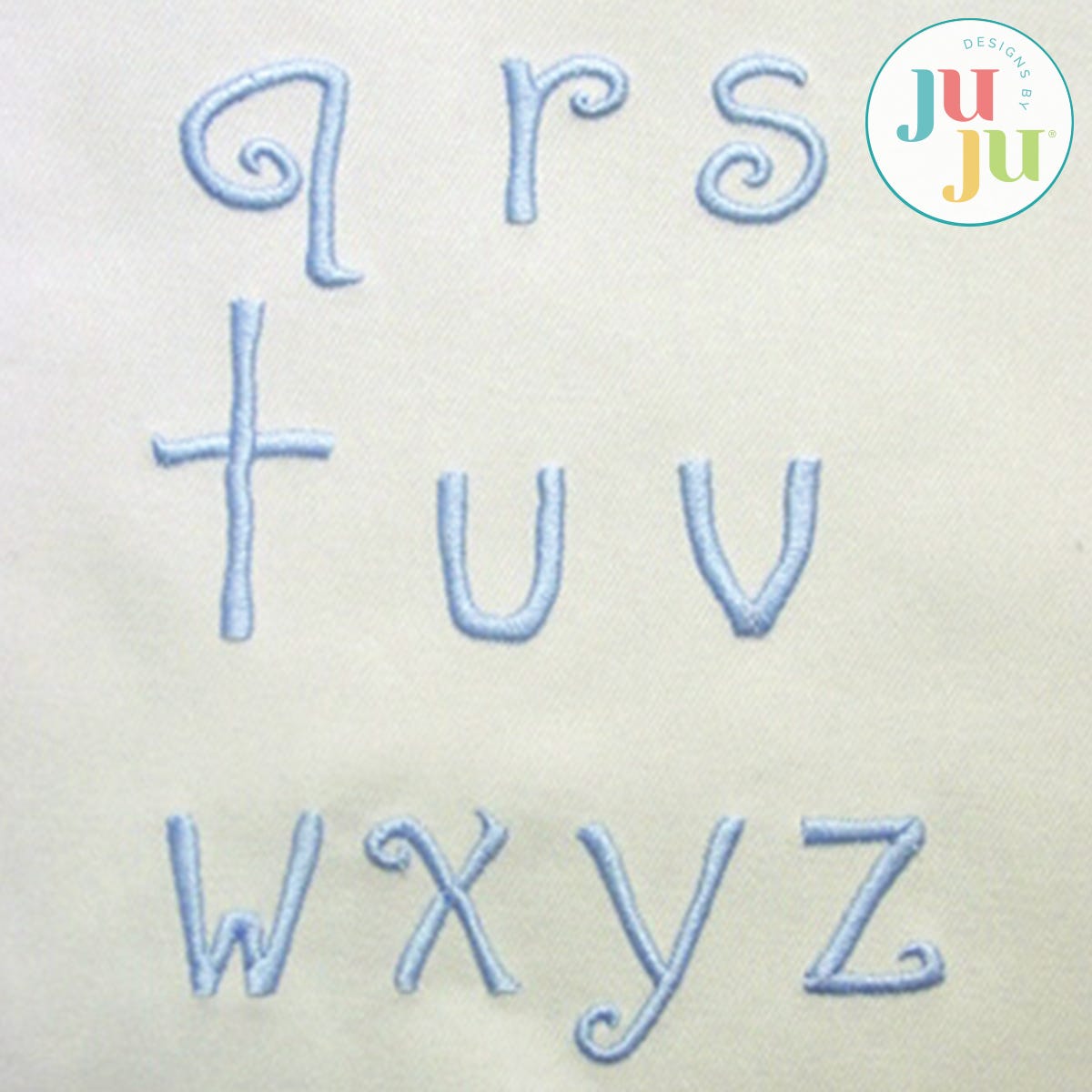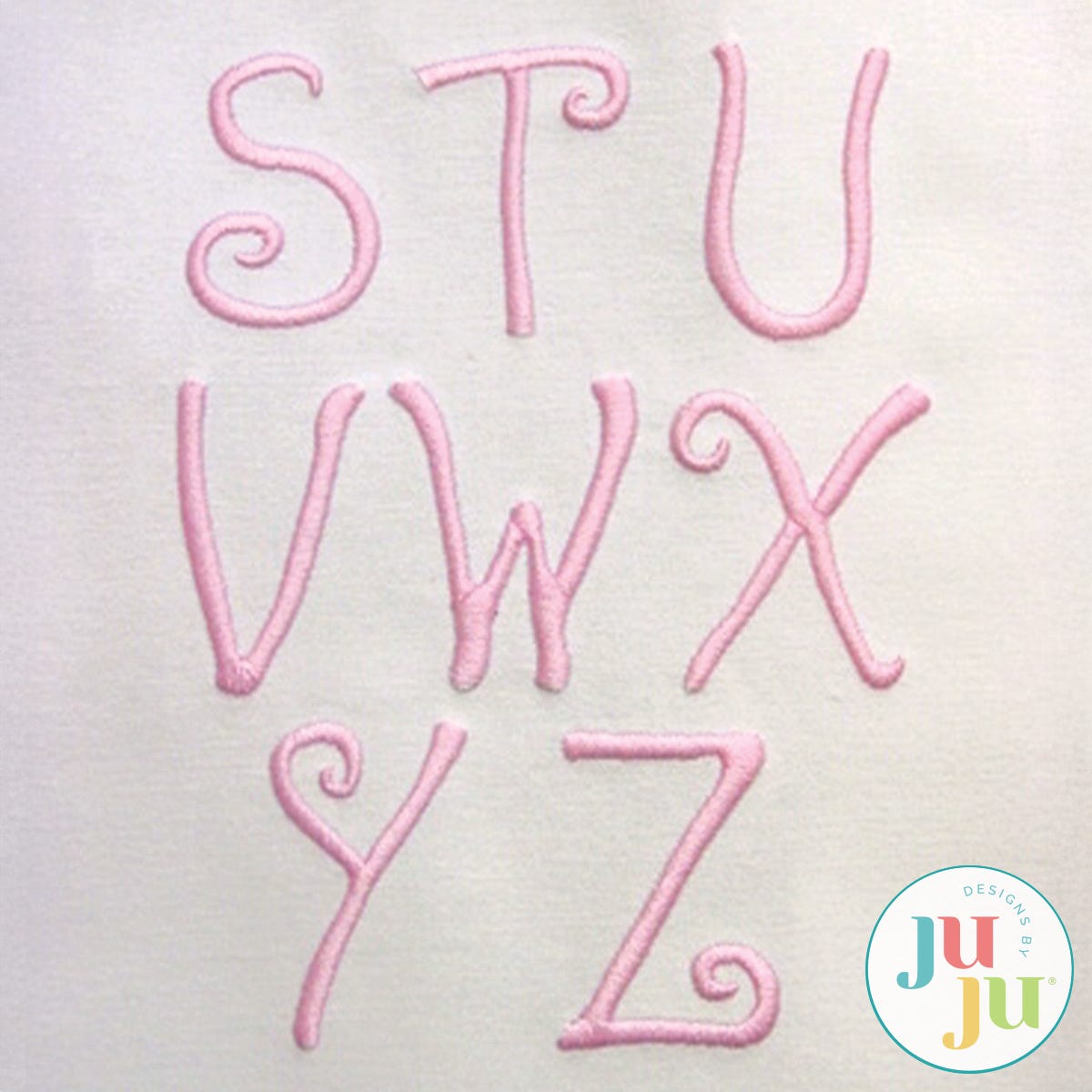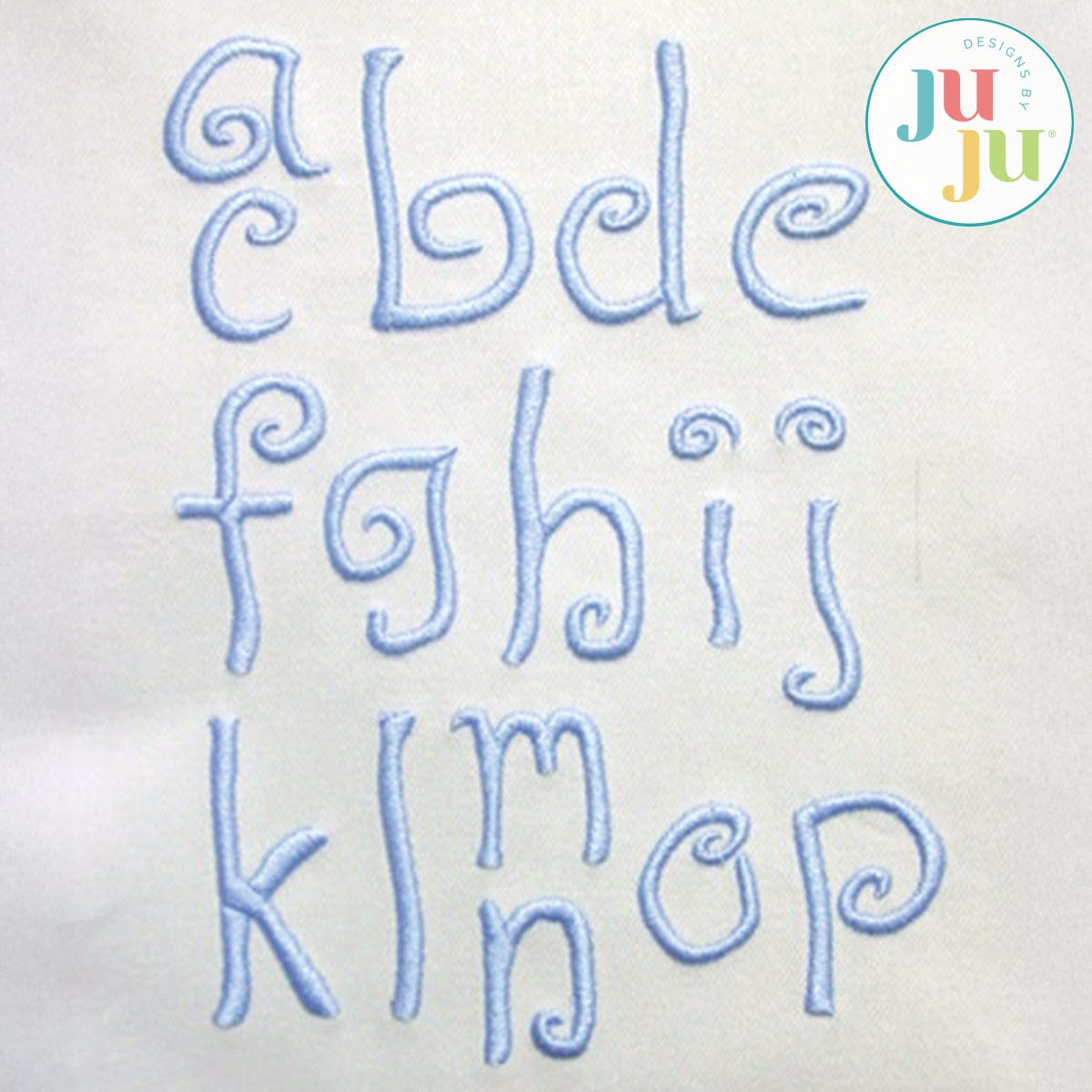
Abby Satin Stitch Embroidery Font by Oma's Place
This quirky, playful font has a young look and feel to it and comes with both capital and lower case letters. Capitals are approximately 2" tall and fit perfectly into most border bands on bath towels. Great for projects for tweens and teens girls (flowers and butterfly sold separately). Complements our Abby Alphabet.